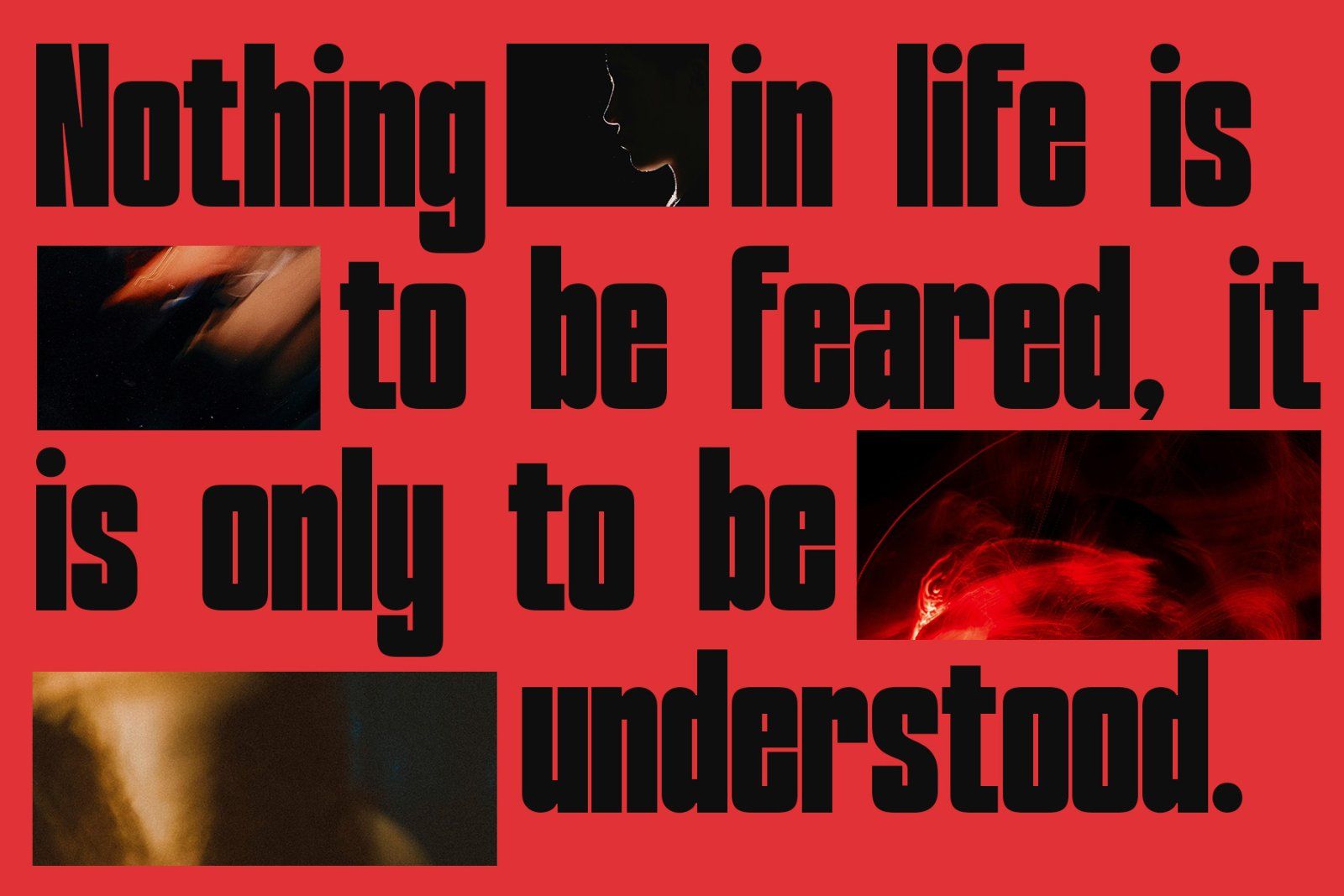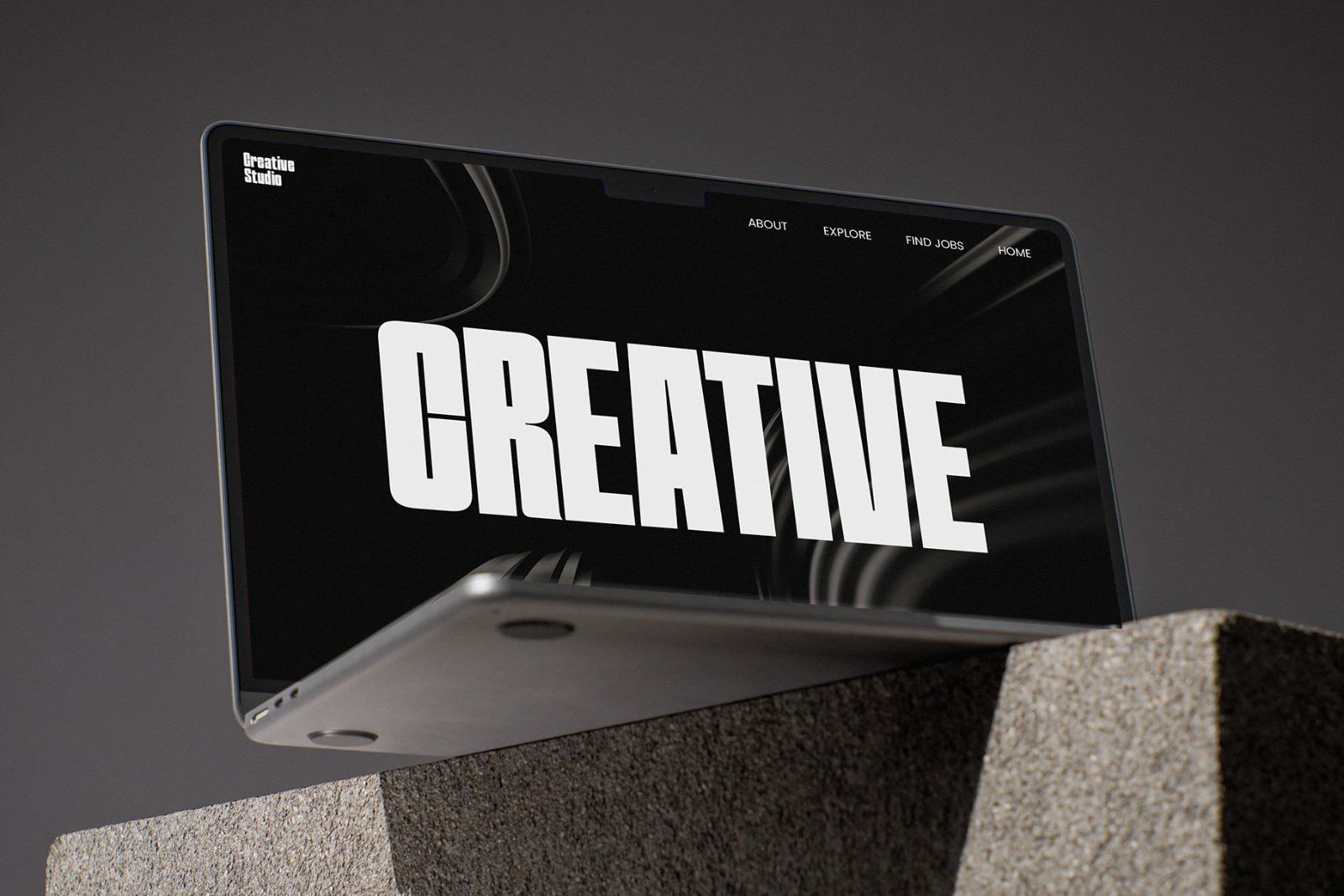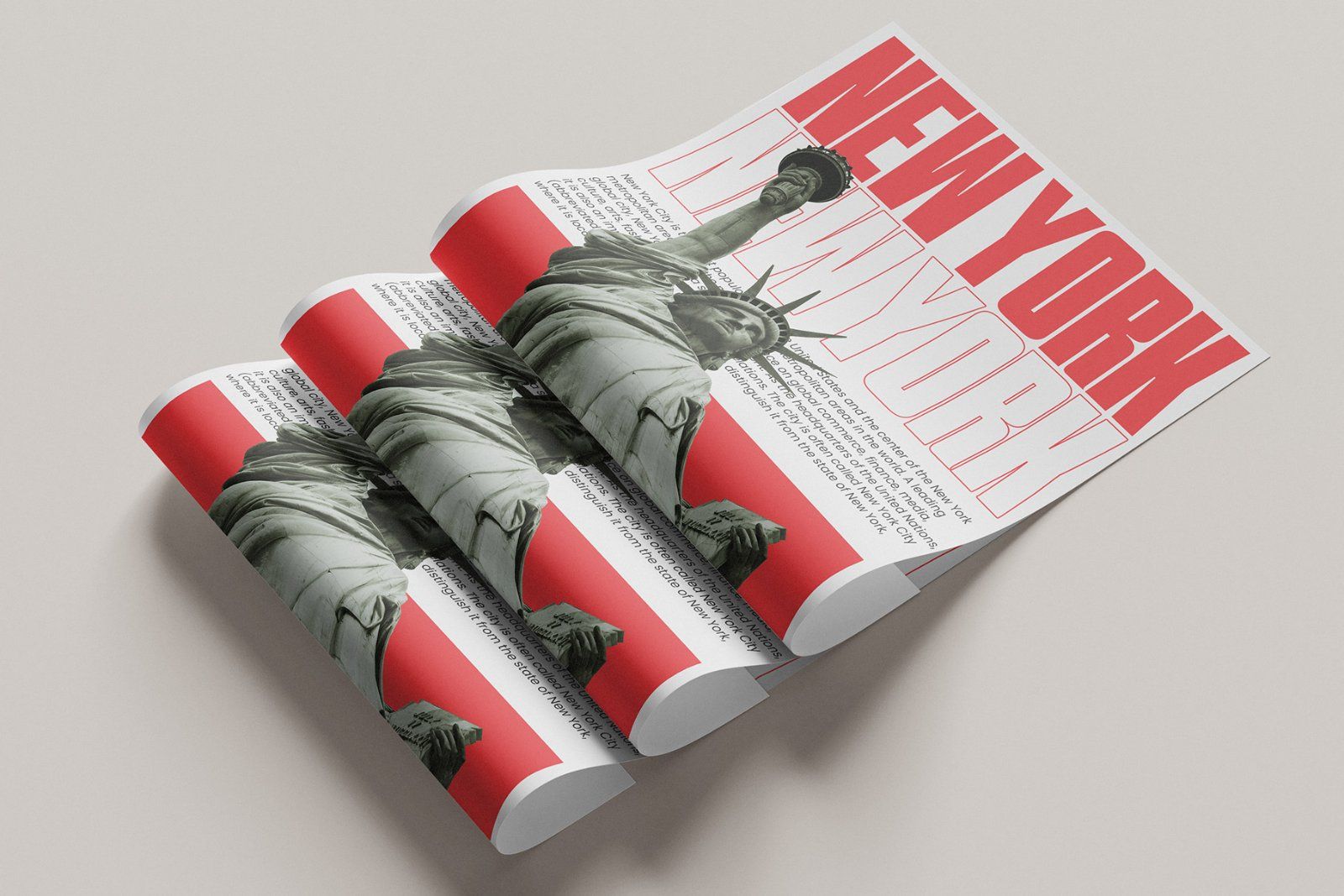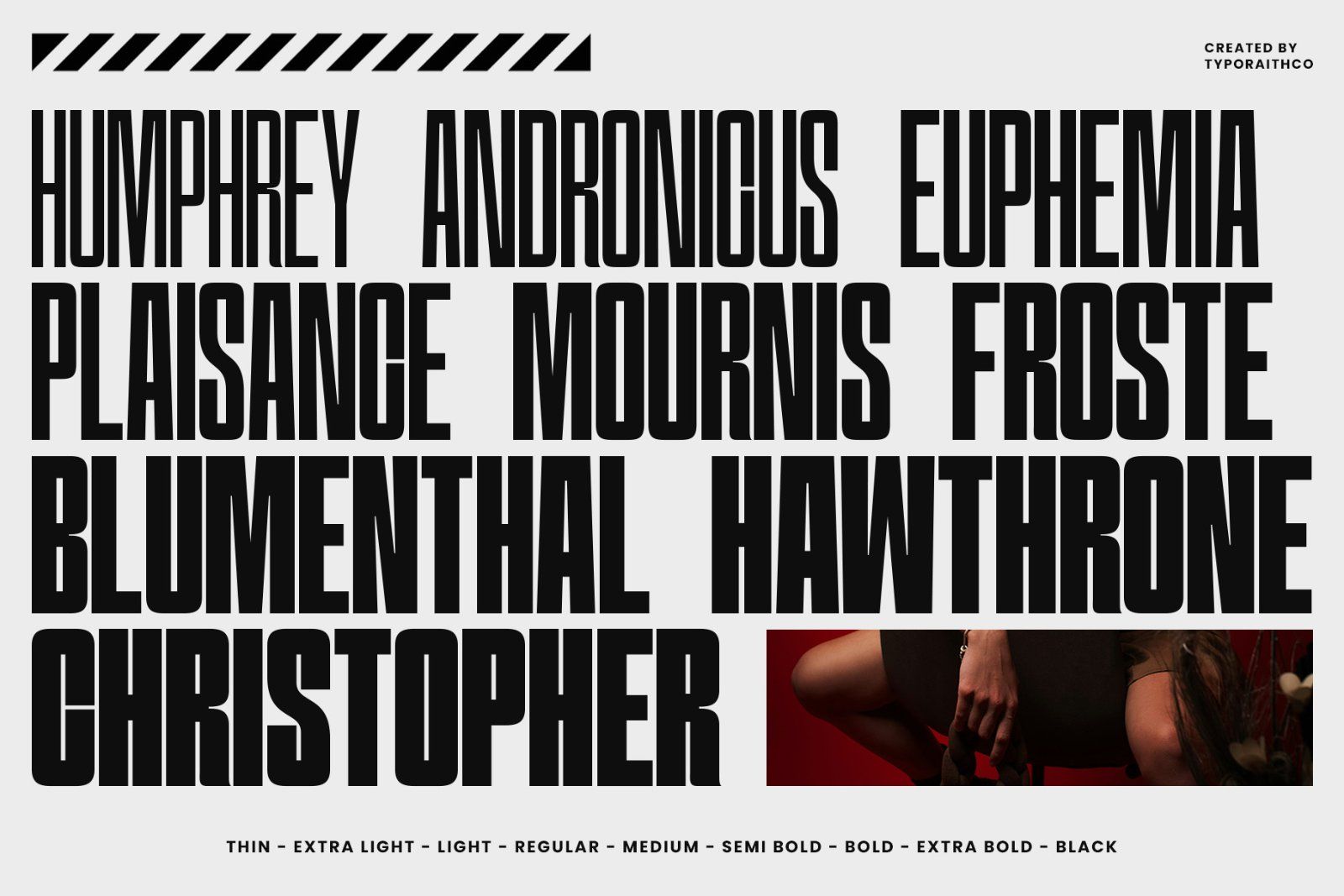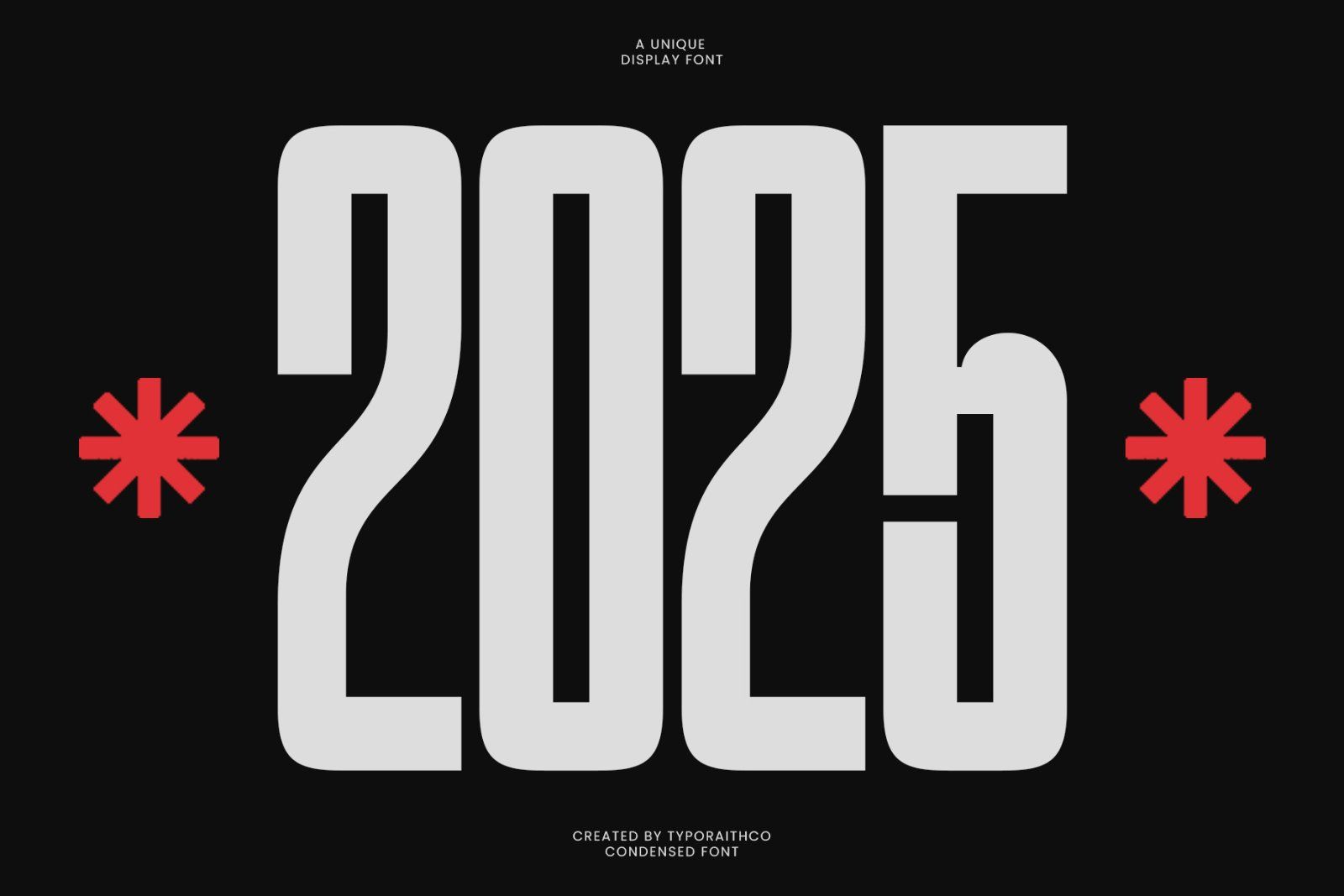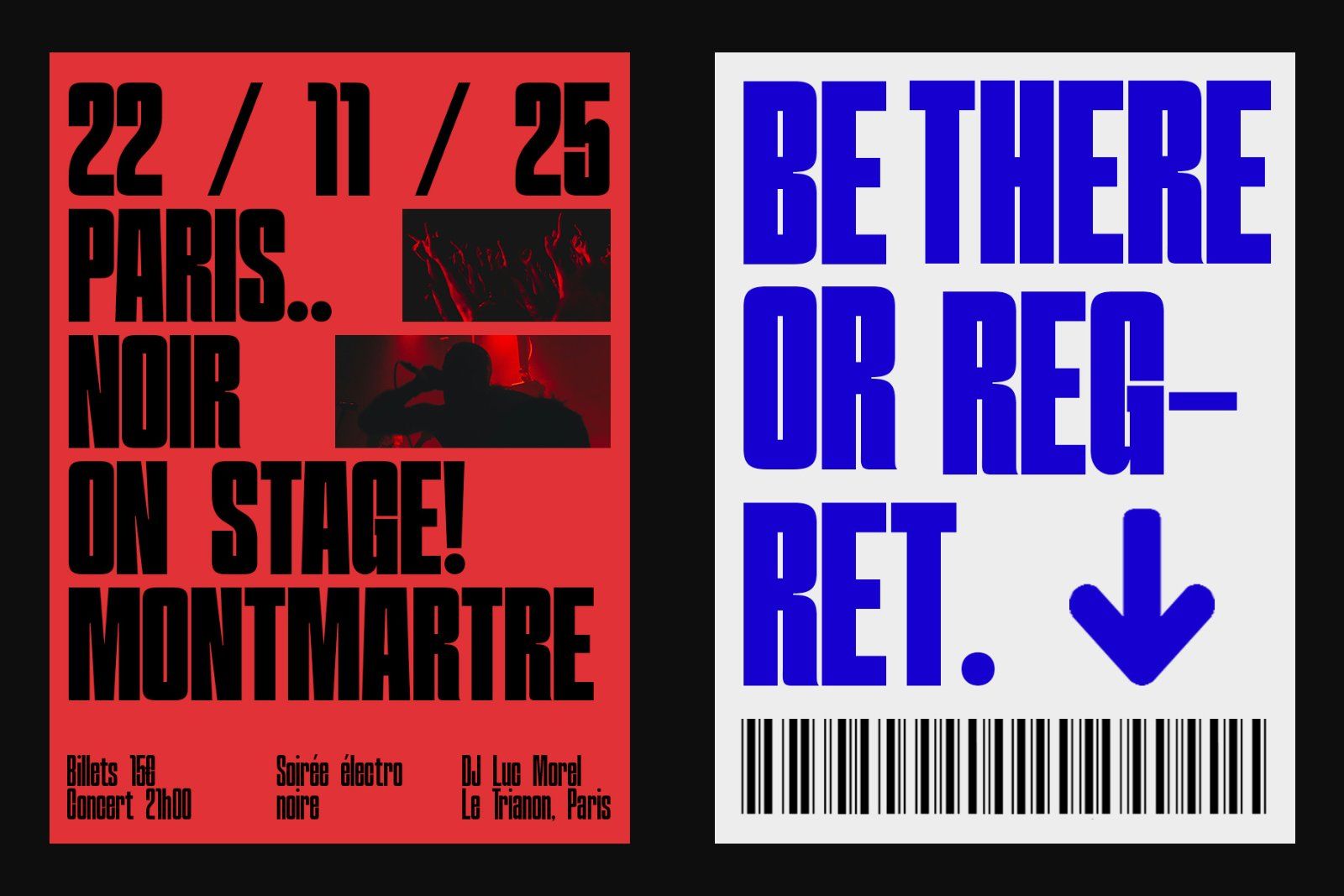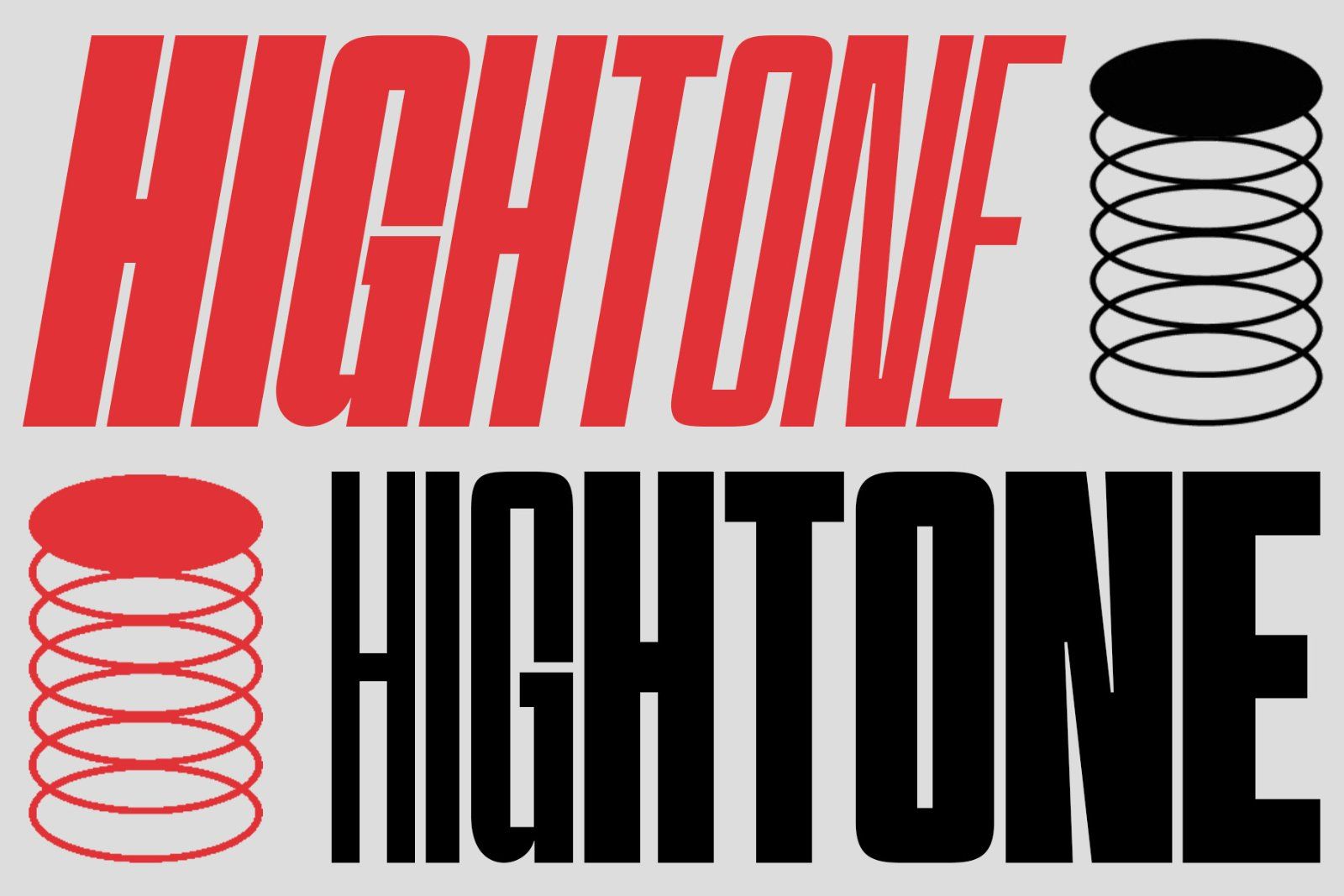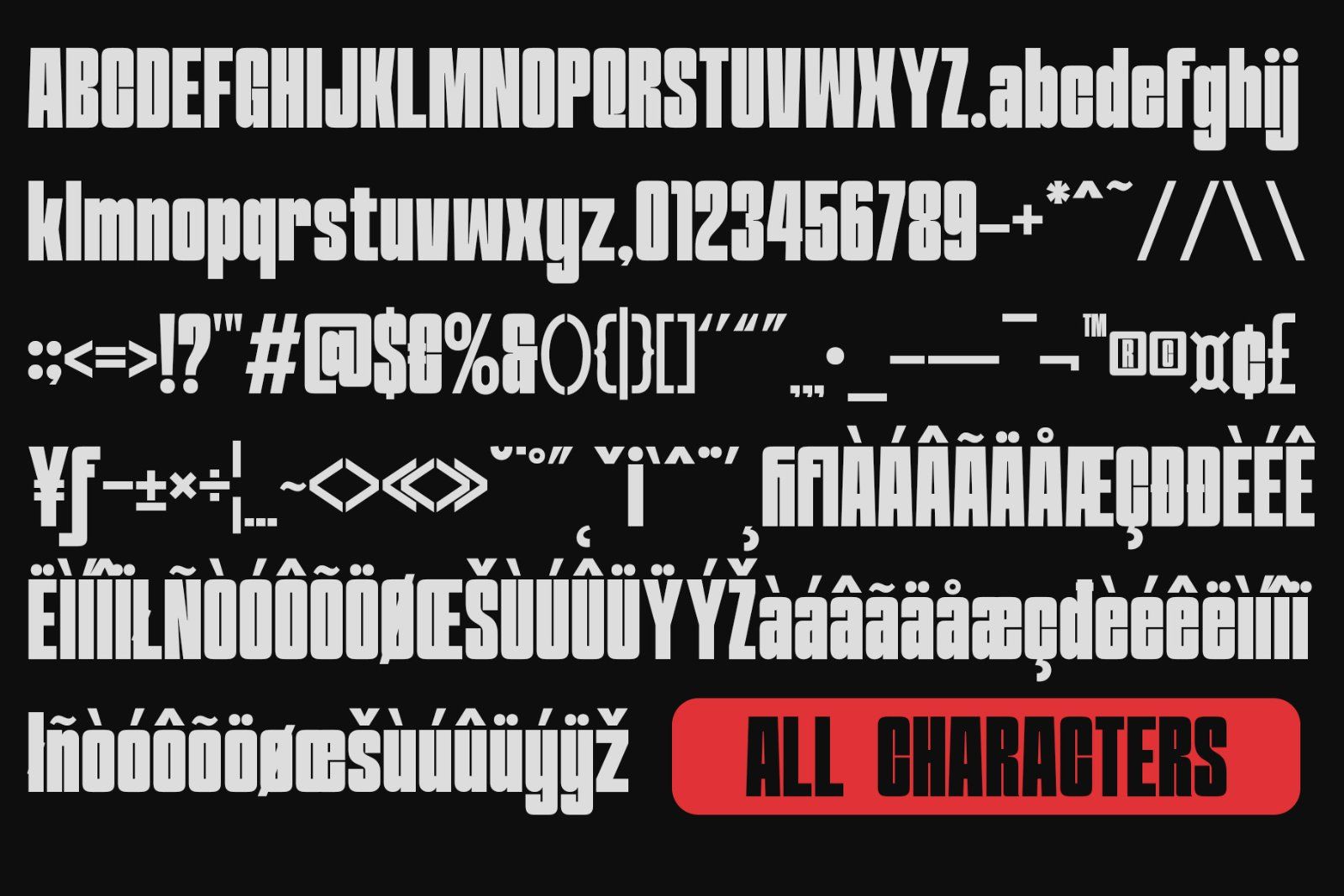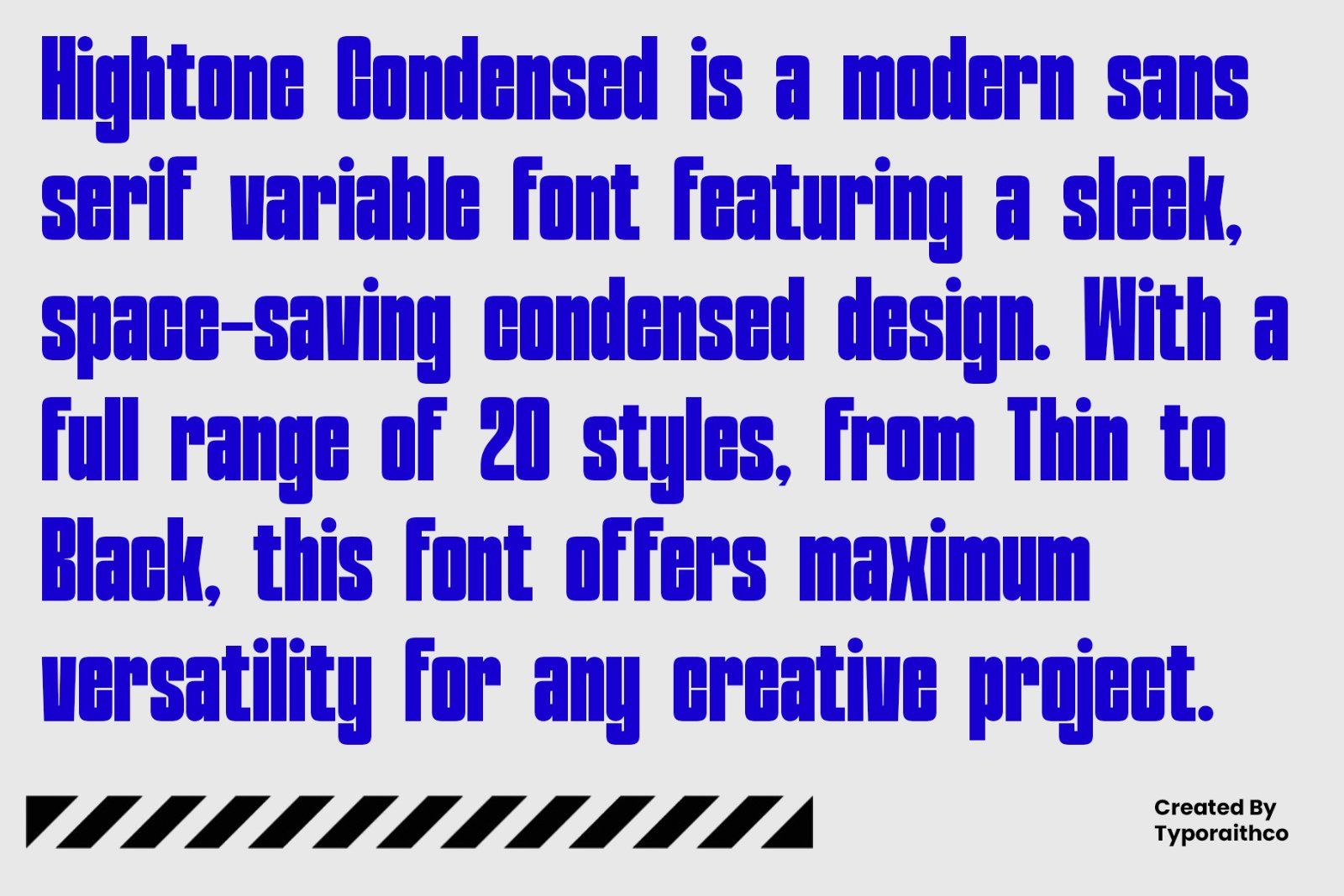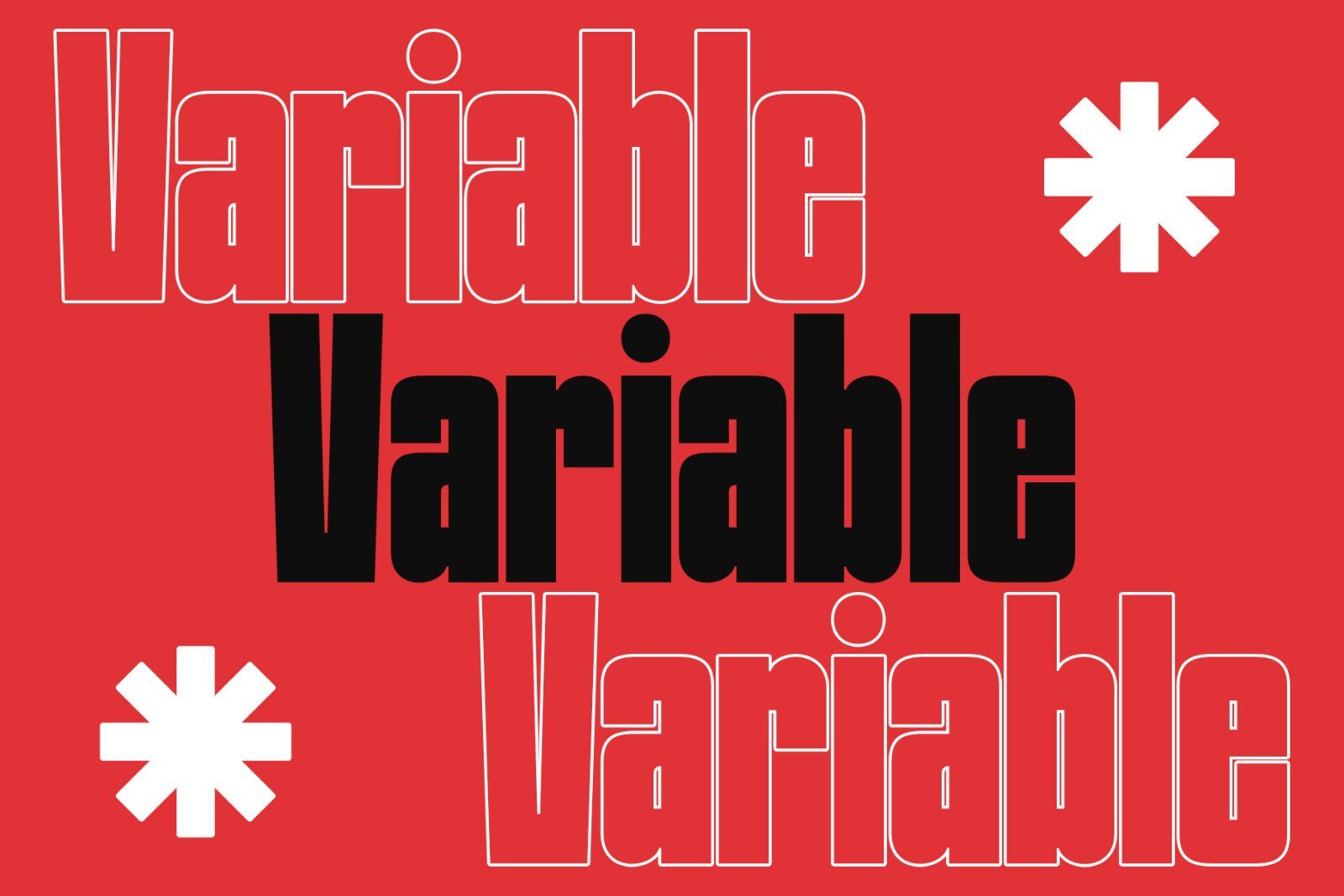
Hightone Condensed is a modern, high-impact tall and narrow display font designed to make a bold statement. With its strong vertical presence and tight spacing, it’s perfect for headlines, posters, branding, editorial layouts, and more.
This typeface comes with 20 variable font styles, ranging from Thin to Black, giving you complete control and flexibility in your design projects. Whether you're creating bold visual compositions or minimalist layouts, Hightone Condensed delivers clean, professional results.
Key Features:
• 20 Variable Font Styles
• Modern condensed design
• Ideal for posters, editorials, websites, fashion, branding, and album covers
Created by Typoraithco, Hightone Condensed is the perfect font to elevate your typography with a unique, editorial, and impactful aesthetic.